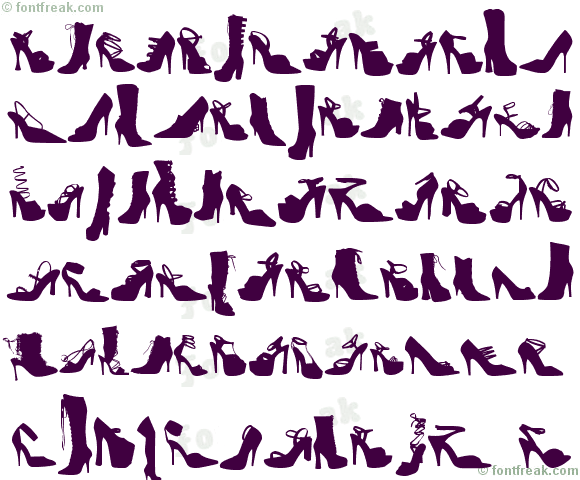
WCFetishBta
WC Fetishist Bta
WC Fetish Bta
About WCFetishBta
WCFetishBta by Christophe Féray is a unique display font that captures the essence of modern design with a playful, edgy twist. This font is characterized by bold, thick strokes that create a striking visual impact, making it ideal for attention-grabbing applications. The high contrast between the thick and thin elements adds an artistic flair, while the rounded shapes lend a sense of approachability. The spacing is carefully balanced, ensuring clarity even at larger sizes, which enhances its usability across various formats.
This font shines in a variety of specific use cases. WCFetishBta is perfect for fashion-related projects, such as creating eye-catching promotional materials for boutique clothing stores or stylish shoe advertisements. Its playful nature makes it an excellent choice for themed party invitations, particularly those with a bold or avant-garde concept. Additionally, it works well for restaurant menus aiming to convey a trendy atmosphere, helping to set the tone for a unique dining experience. Graphic designers looking to create vibrant posters, especially in the entertainment sector, will find this font to be an invaluable asset.
Targeted towards graphic designers, small business owners, and content creators, WCFetishBta appeals to those who appreciate a contemporary aesthetic infused with a hint of whimsy. Its unique characteristics cater to a demographic that values distinctive visual elements and seeks to stand out in a crowded marketplace.